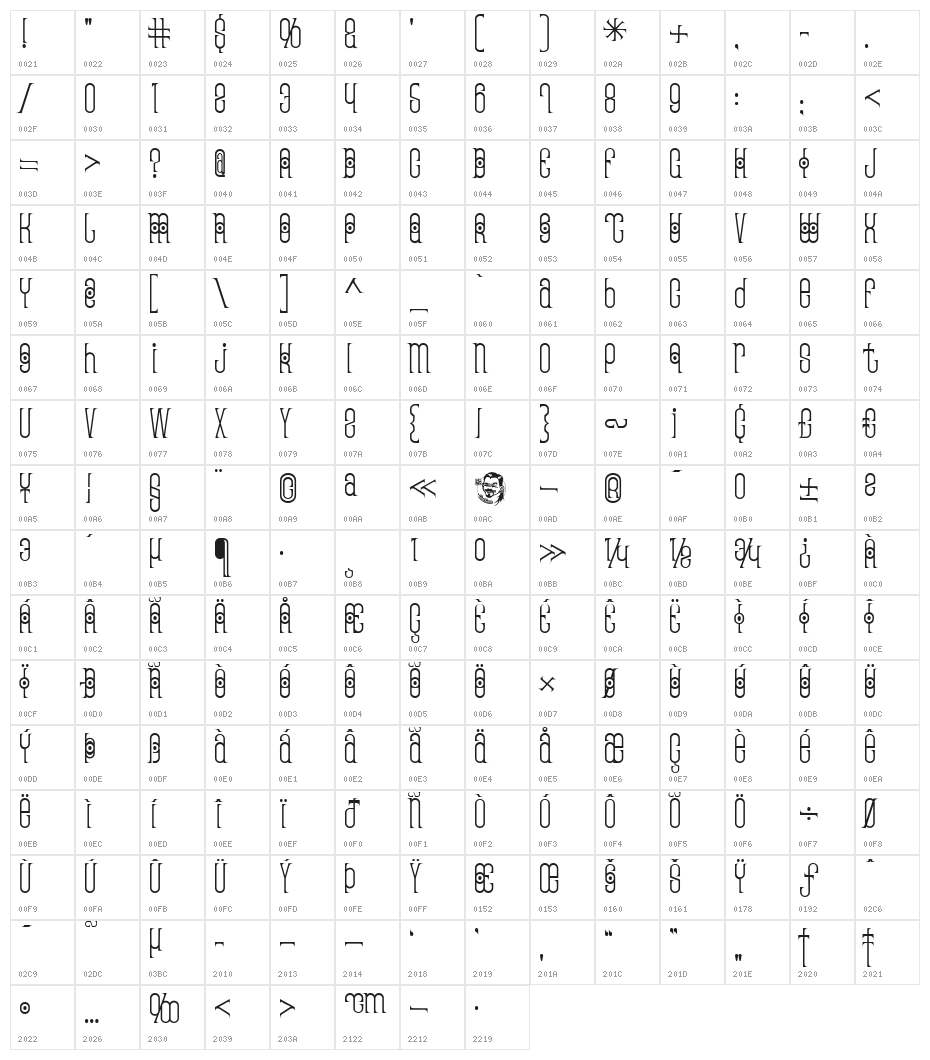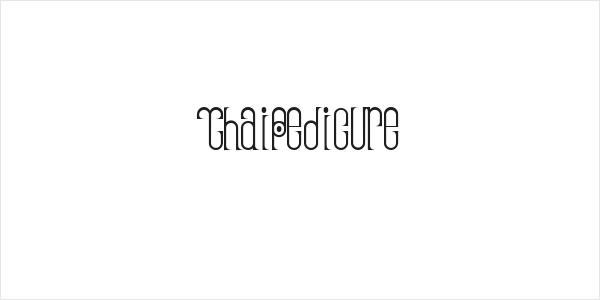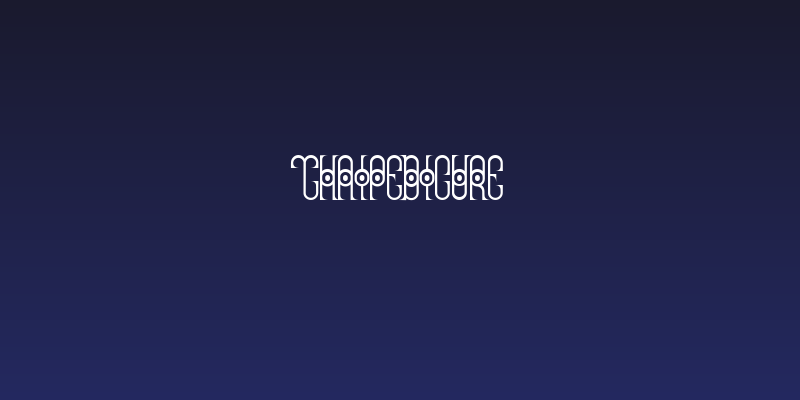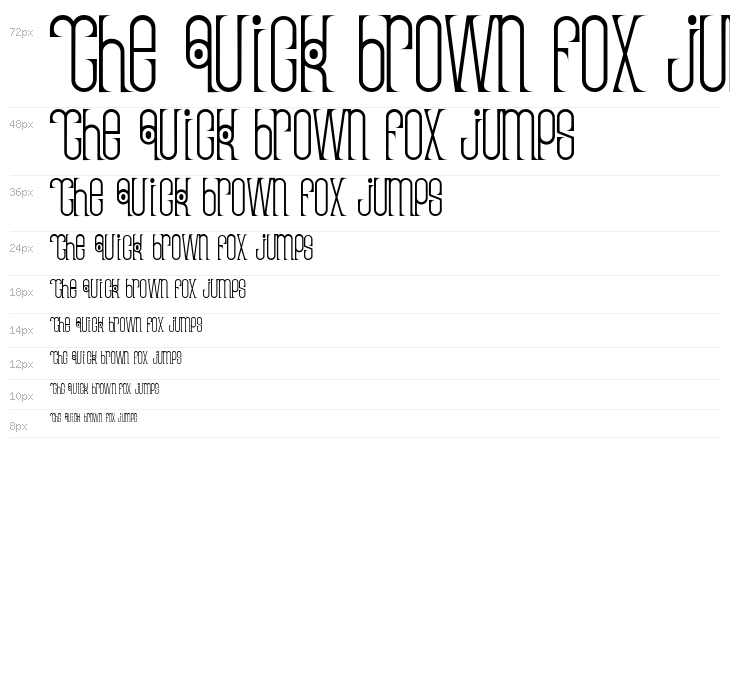
ThaiPedicure Font
ThaiPedicure Description
This font features a highly decorative and unique style, characterized by its elongated and narrow letterforms. Each character is intricately designed with circular elements that create a playful and whimsical appearance. The uppercase and lowercase letters maintain a consistent height, contributing to a uniform look. The numbers and special characters are equally stylized, incorporating the same circular motifs. This font's distinctiveness makes it stand out, offering a modern yet artistic flair that is both eye-catching and memorable.
| Proposed Projects | Ideal for creative projects such as posters, album covers, branding, and any design work that requires a bold and artistic touch. |